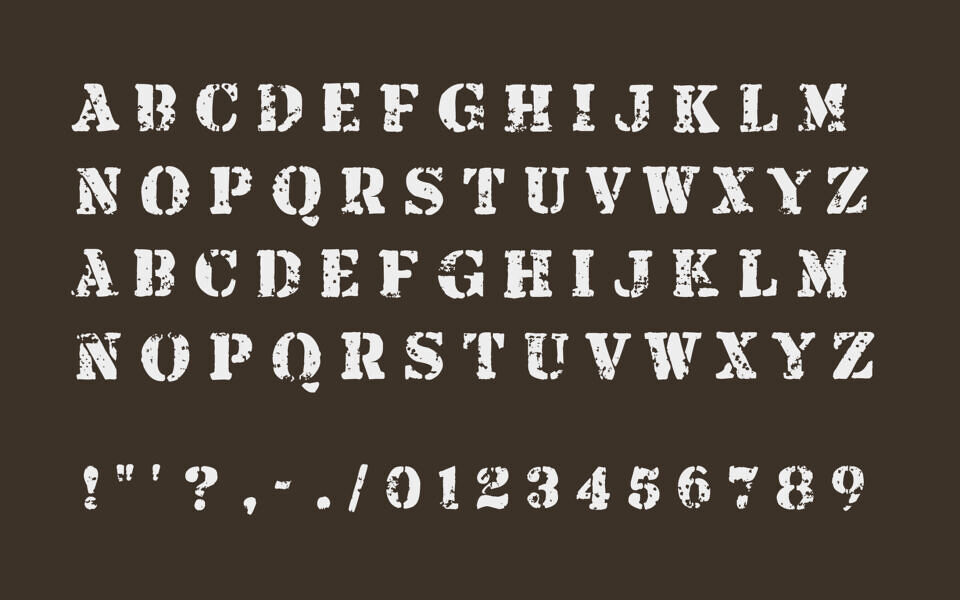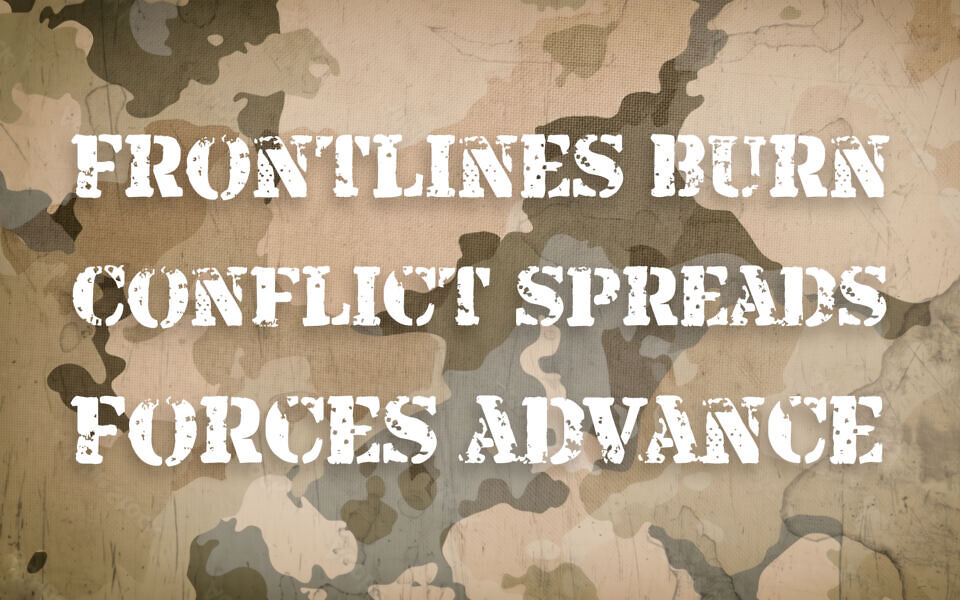
Armalite Rifle Font
Armalite Rifle is a rugged, military-inspired stencil typeface designed by Vic Fieger. Characterized by its bold, heavy weights and industrial splits, it perfectly captures the gritty essence of tactical gear, army surplus aesthetics, and post-apocalyptic themes.
Its strong, high-impact presence makes it an excellent choice for eye-catching headlines, gaming logos, and any design needing a raw, authoritative, and weapon-grade look.